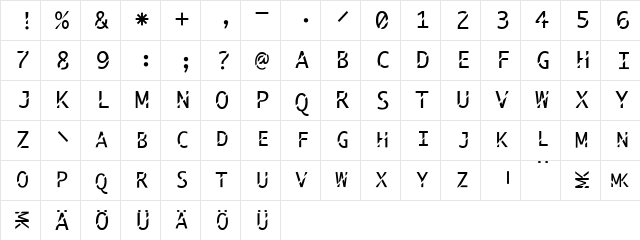
ABCThru Regular Font Preview
ABCThru Regular
ABCThru Regular Font Details
Design Context for ABCThru Typeface
ABCThru is a composed and adaptable typeface that performs quietly and consistently across a wide range of design contexts.